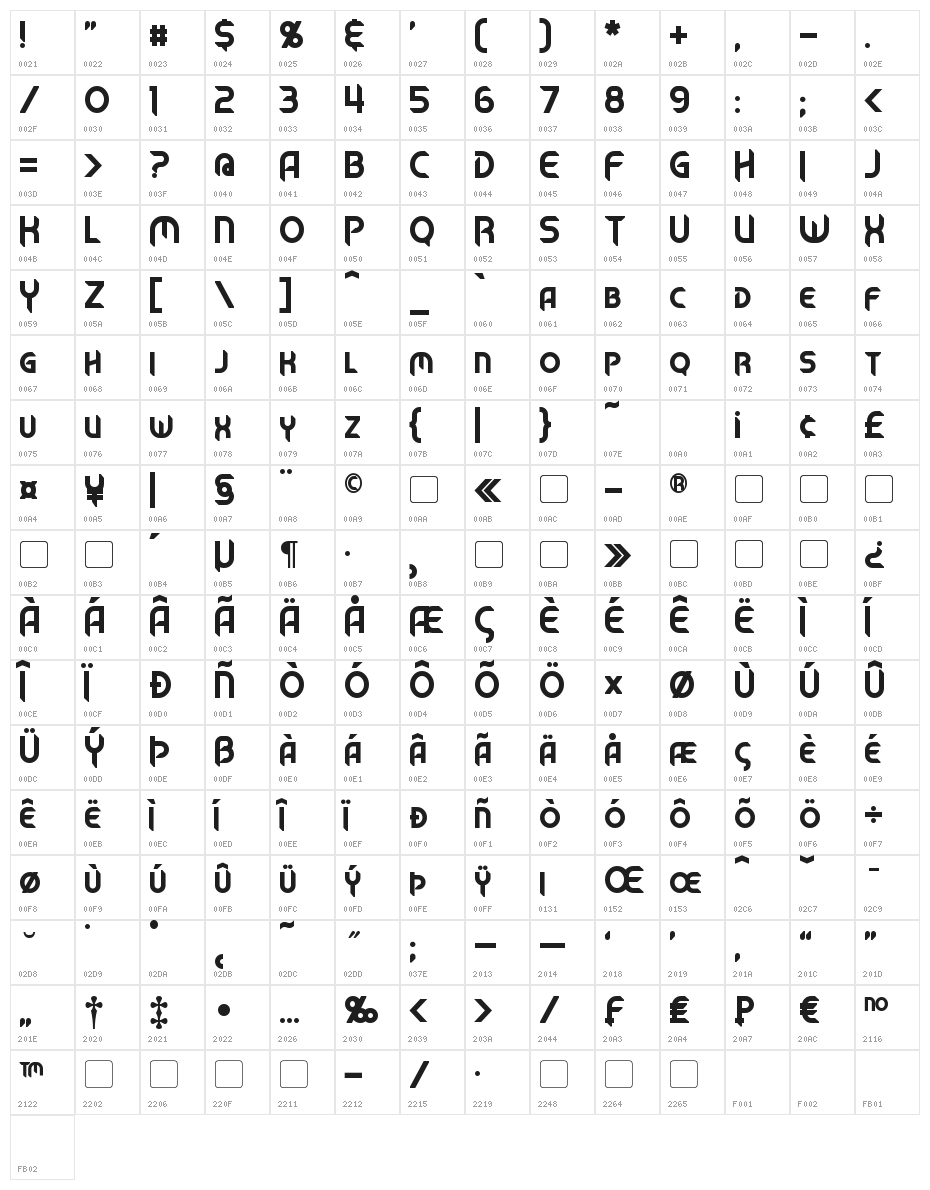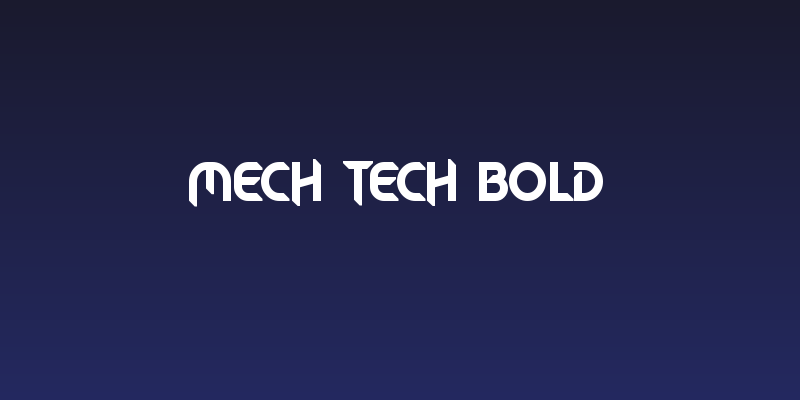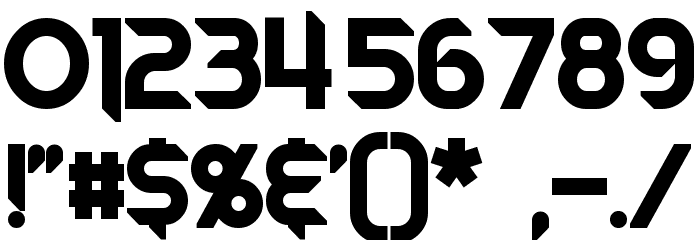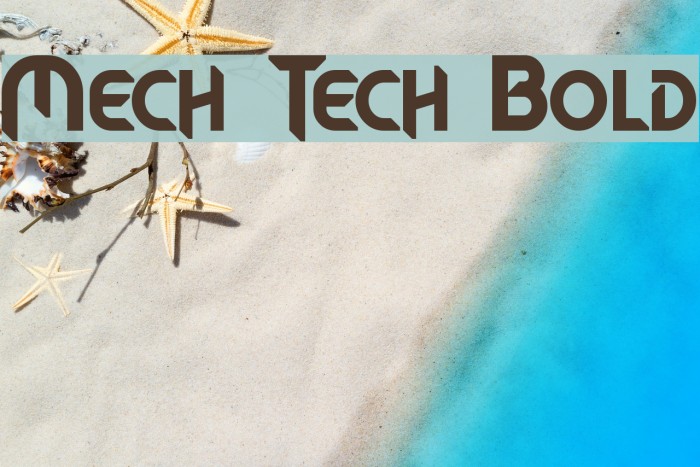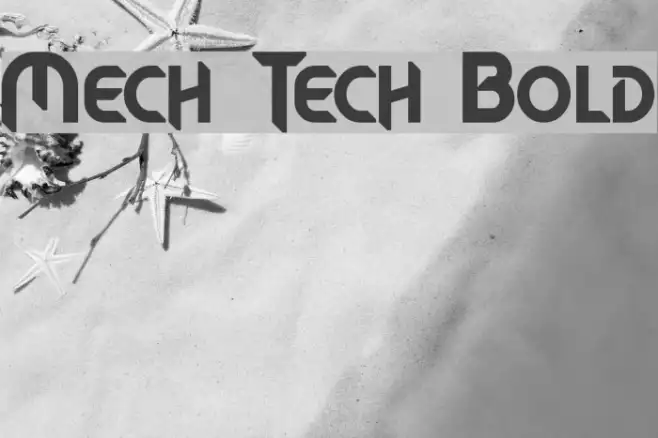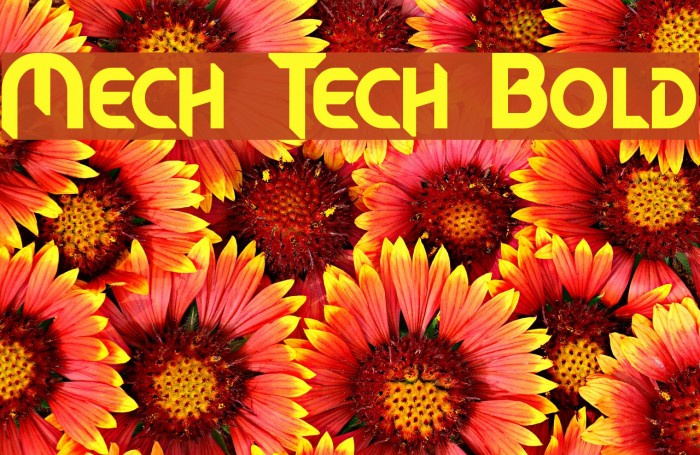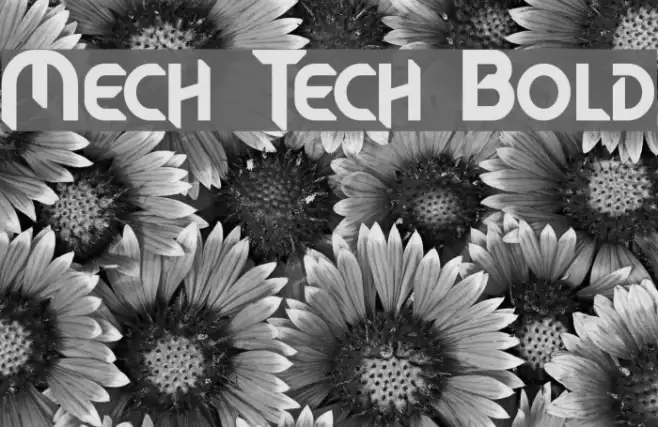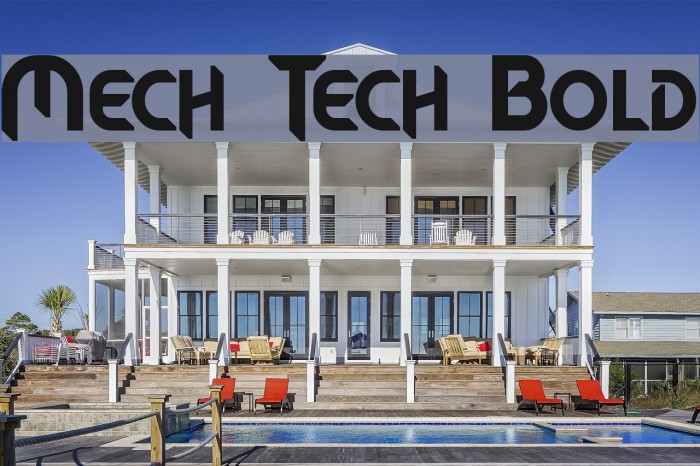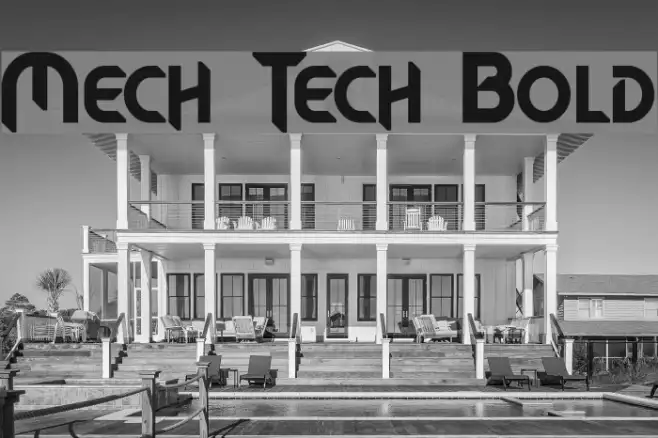
Mech Tech Bold Font
Mech Tech Bold Description
This font features a bold, geometric design with a futuristic and mechanical aesthetic. The characters are constructed with sharp angles and straight lines, giving them a strong and industrial feel. The uppercase and lowercase letters maintain a consistent style, with a uniform thickness that adds to the boldness of the font. The numbers and special characters are designed to match the angular and robust appearance of the letters, ensuring a cohesive look across all glyphs. This font is ideal for projects that require a modern and technical vibe, such as technology branding, video game titles, or sci-fi themed designs.